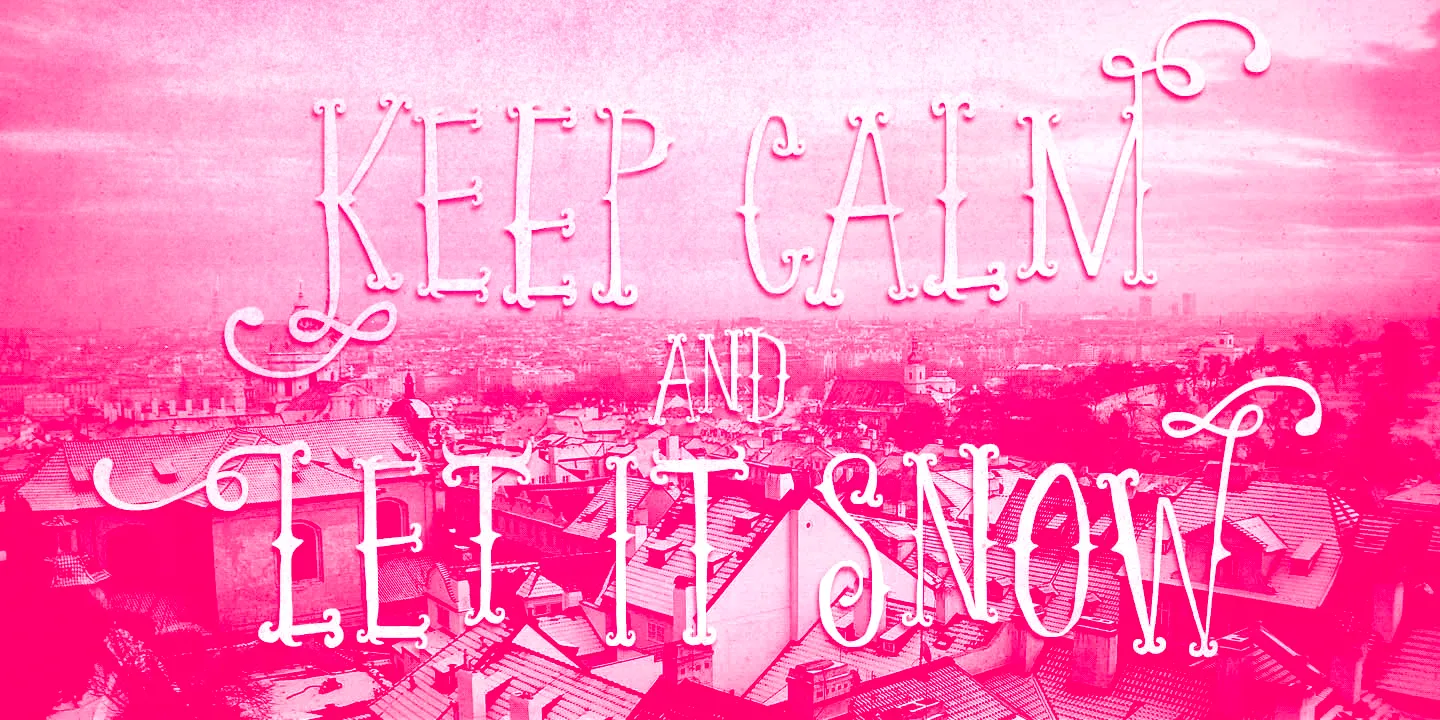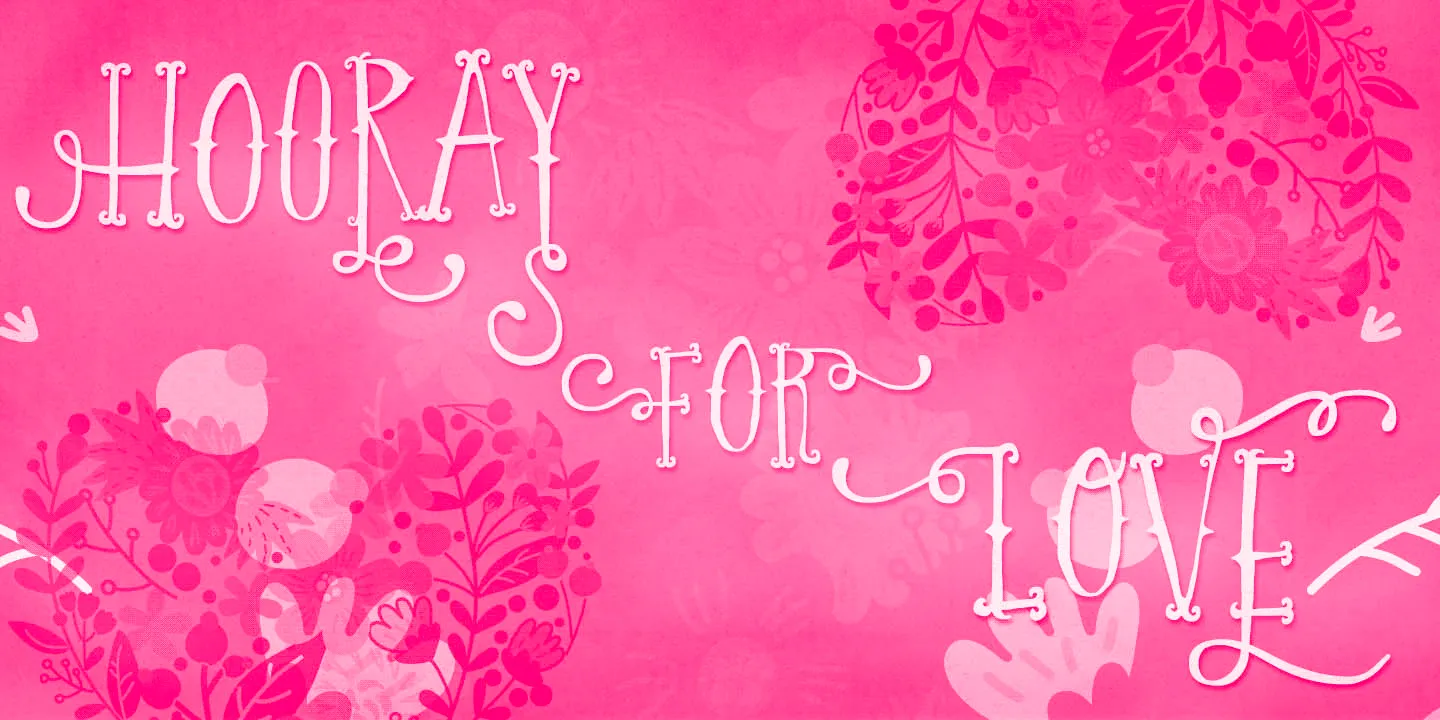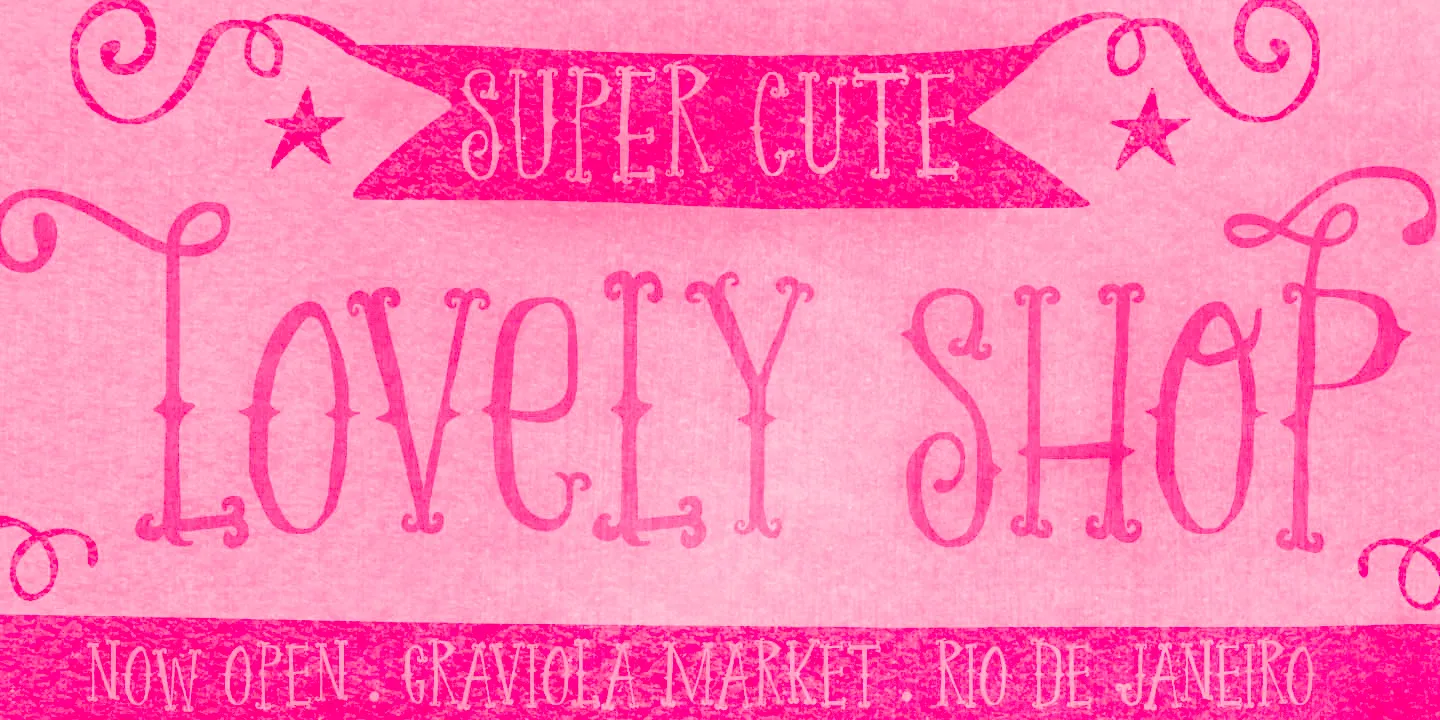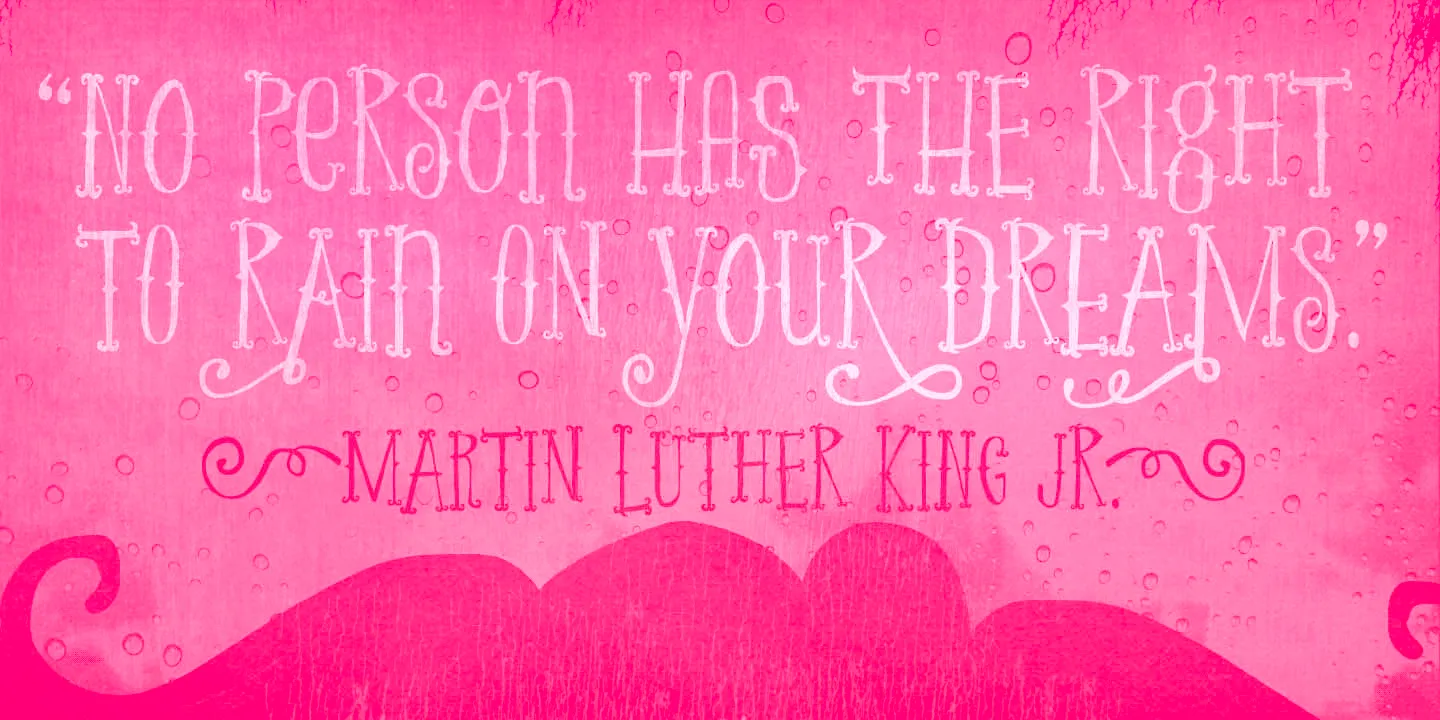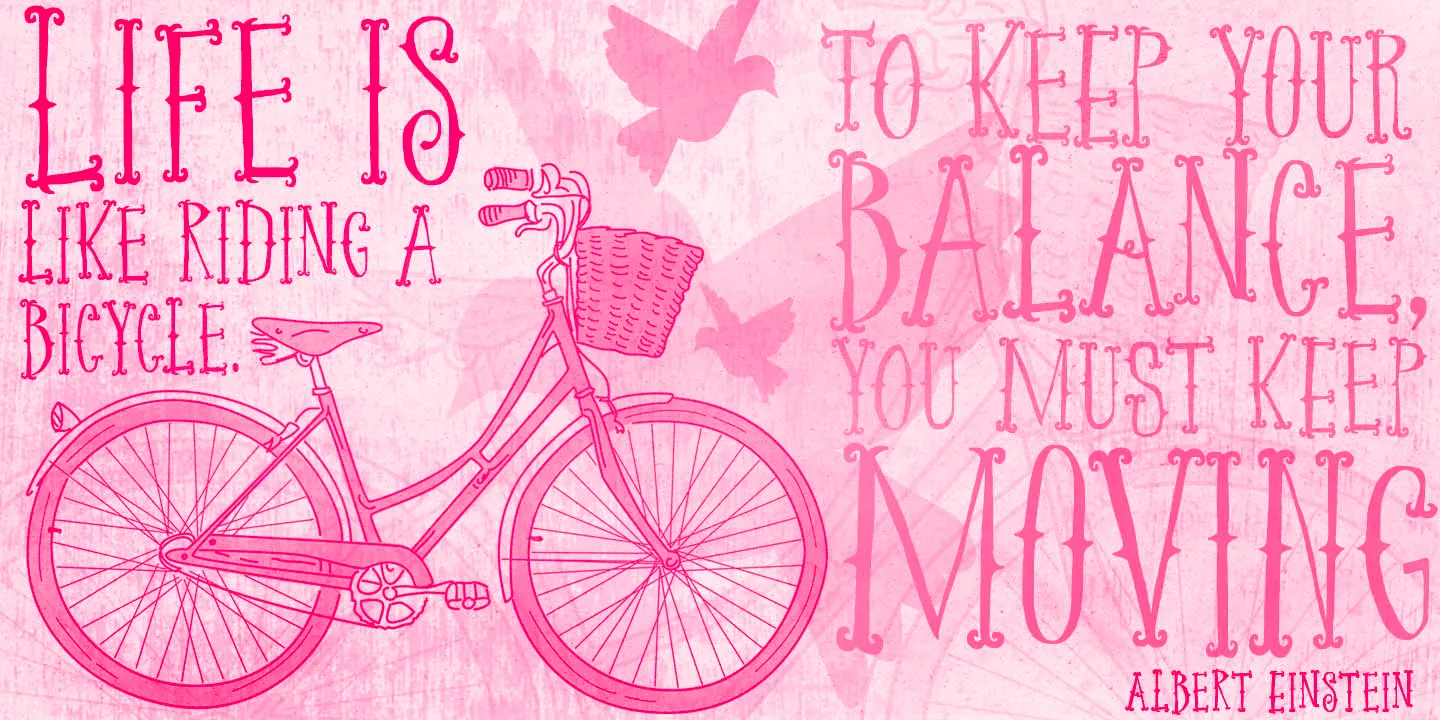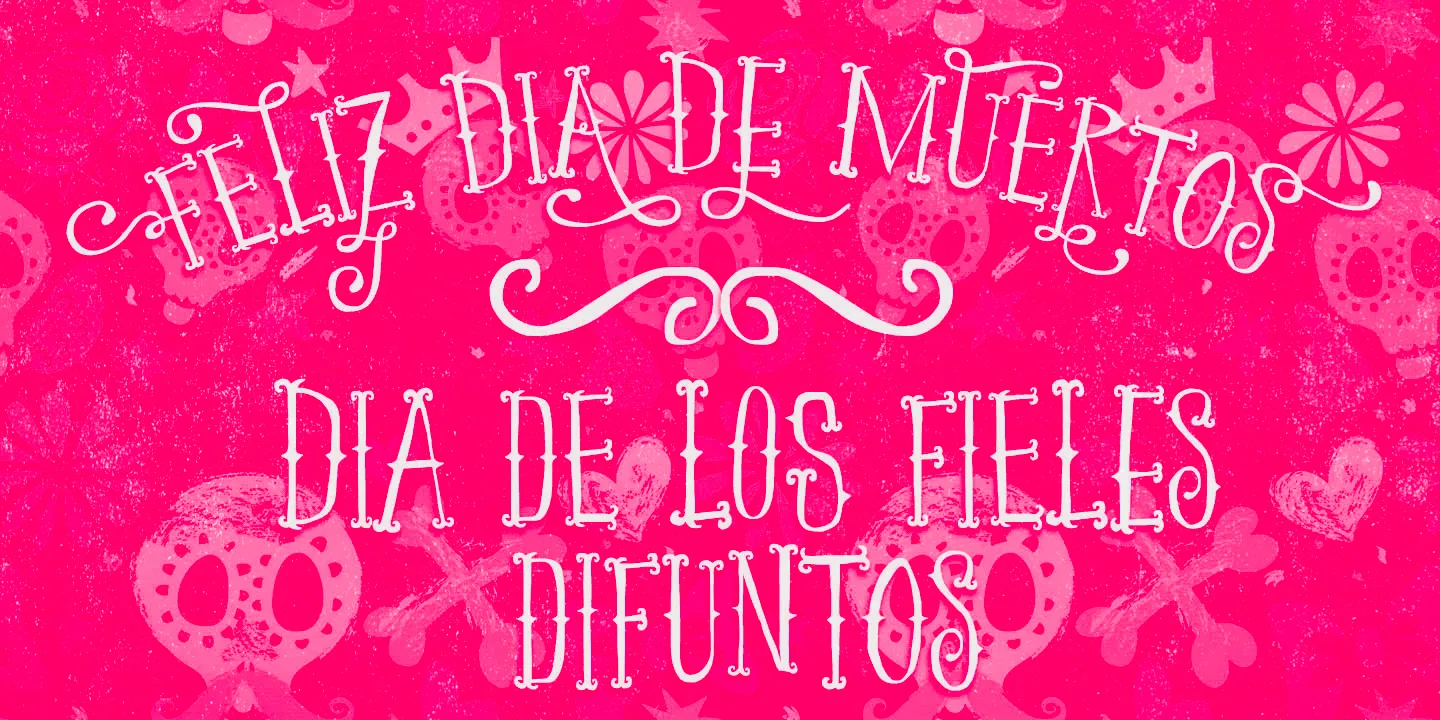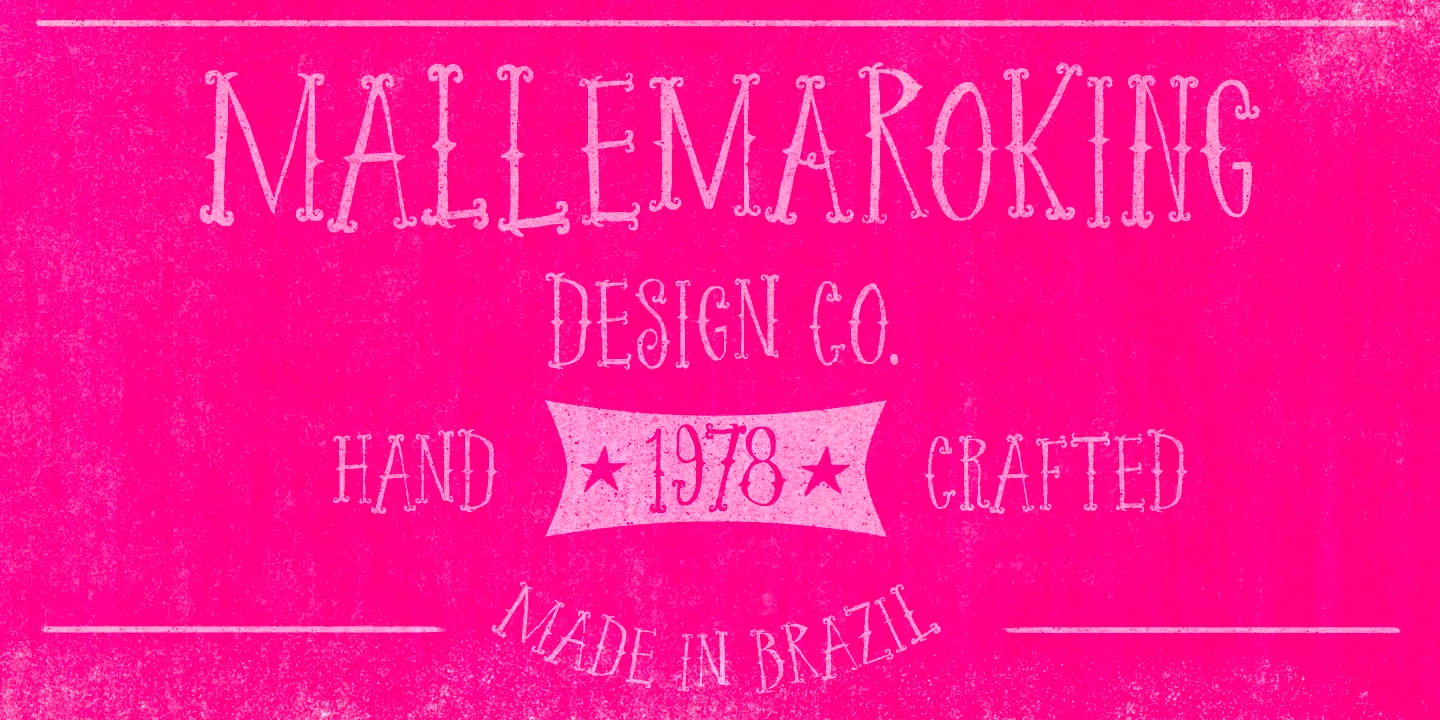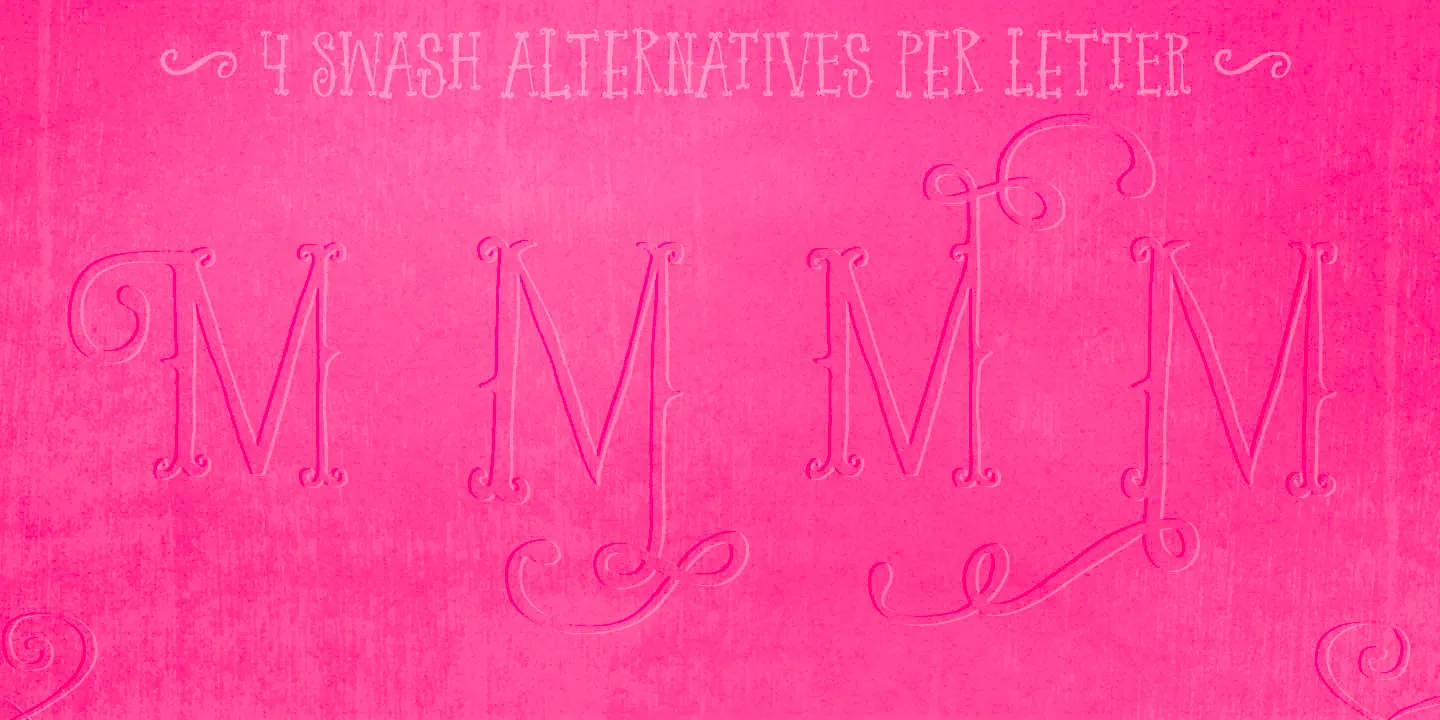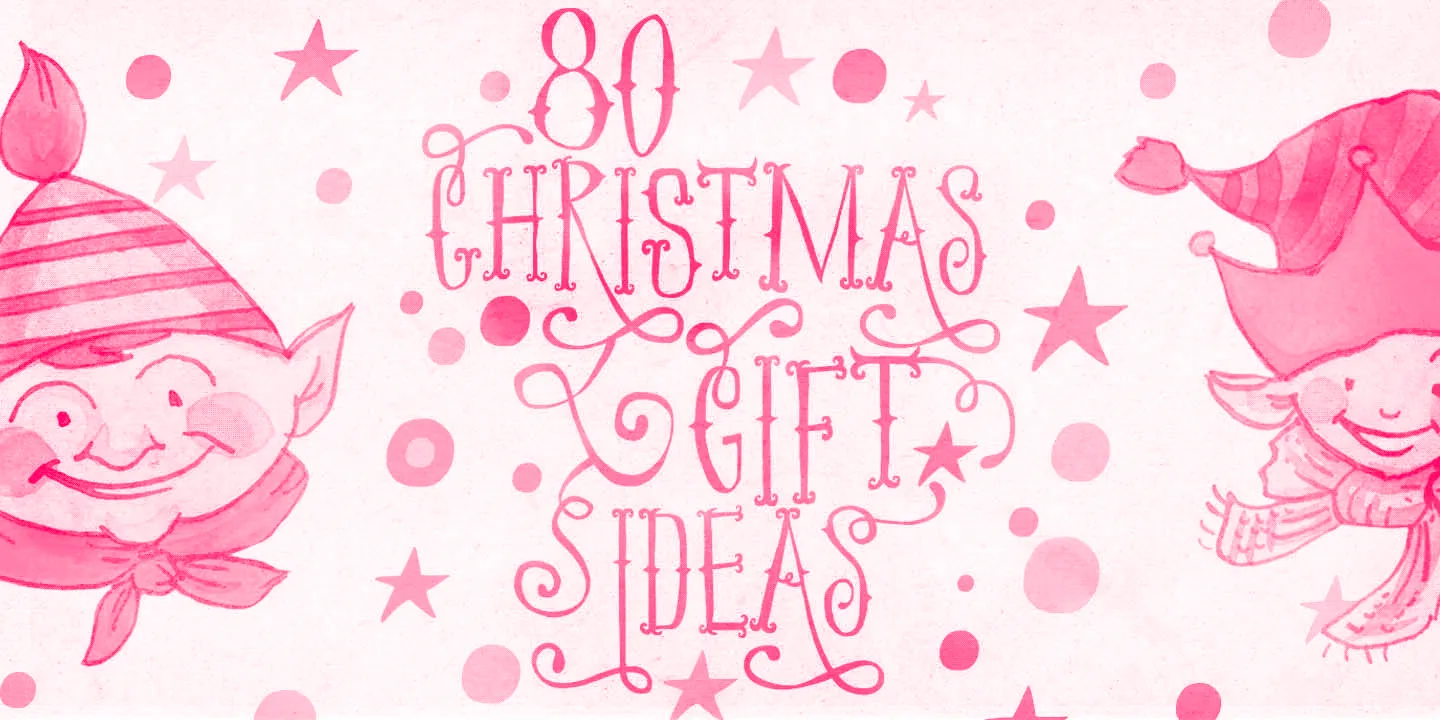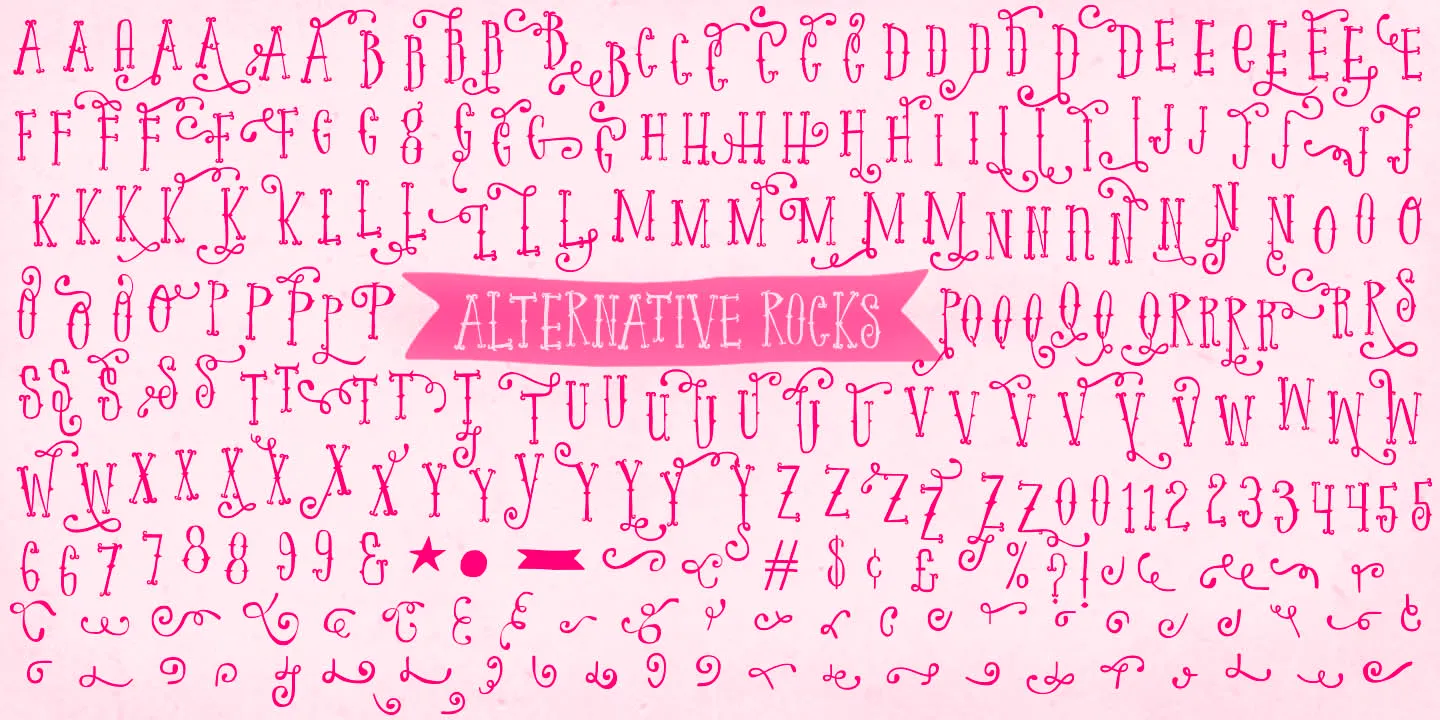
Periplus Font
Periplus
Periplus is a whimsically condensed hand-drawn serif with a lively personality and an unmistakable vintage flair. With eccentric, bifurcated terminals, its bouncy rhythm and subtly uneven strokes have an animated exuberance that is exaggerated when alternates and swashes are used. Ideal for adding theatrical presence to film posters, food packaging, advertisement campaigns, and children’s books. I got rhythm, I got music, I got my swirls! Who could ask for anything more?
• Swashes